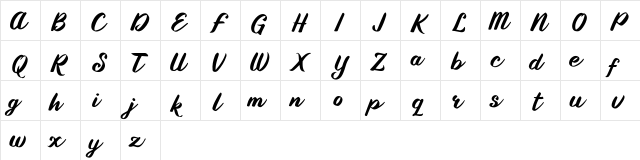
Bryan Khostang Bryan Khostang
| Foundry | Fenny Wiryani |
| Designer | Fenny Wiryani |
Design Context for Bryan Khostang Typeface
Bryan Khostang is a composed and adaptable typeface that performs quietly and consistently across a wide range of design contexts.